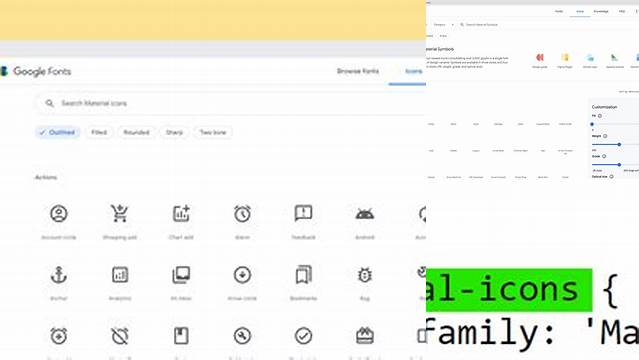
Material Icons: Using Google Fonts & Href Rel=stylesheet
Hey guys! Ever wondered how to get those slick Material Icons from Google into your website? It's actually super easy, and we're going to break it down using the href https fonts googleapis com icon family material icons rel stylesheet method. This is basically the magic incantation you need to link Google's Material Icons font library to your project. So, let's dive in and make your website look awesome with these icons!
1. What are Material Icons and Why Use Them?
Material Icons are a set of pre-designed icons created by Google, following their Material Design guidelines. Think of them as a visual language for your website or app, providing a consistent and clean look. These icons cover a wide range of common actions and objects, like search, menu, settings, and more. They're like tiny visual superheroes, ready to save the day (or at least, make your website more user-friendly!).
Why should you use them? Well, for starters, they're free! Plus, they're designed to look great on any screen size, from tiny phones to giant desktops. Using a consistent set of icons, like Material Icons, really elevates the user experience, making your site feel polished and professional. Imagine trying to navigate a website with a bunch of random, mismatched icons – it'd be chaos! Material Icons bring order and clarity to the digital realm.
Another big win is that they're a font. Yep, you heard that right! This means they're super scalable, so they'll look crisp and clear no matter how big or small you make them. And because they're a font, you can style them with CSS just like you would with text – changing their color, size, and even adding shadows. How cool is that? Using icon fonts also reduces the number of image requests, which can speed up your website's loading time. That's a win-win!
2. Understanding the <link> Tag
The <link> tag in HTML is your best friend when it comes to connecting external resources to your webpage. It's the little helper that tells the browser, "Hey, go grab this stylesheet (or icon font!) from over there and use it on this page." Think of it like a bridge, connecting your HTML document to the wider world of CSS stylesheets, favicons, and, in our case, Google's Material Icons font library. Without the <link> tag, your webpage would be a lonely island, unable to benefit from the styles and resources it needs to truly shine.
The <link> tag goes inside the <head> section of your HTML document, which is where all the metadata and links to external resources live. It's like the backstage area of your webpage, setting the stage for the visual performance to come. The href attribute is the most important part of the <link> tag, as it specifies the URL of the resource you want to link to. In our case, it's https://fonts.googleapis.com/icon?family=Material+Icons, the online address of the Material Icons font library hosted by Google.
Other important attributes include rel, which defines the relationship between the current document and the linked resource. For stylesheets and icon fonts, we use rel="stylesheet". This tells the browser that the linked resource is a stylesheet and should be applied to the page. There are other rel values, like icon for favicons and alternate for alternative stylesheets, but stylesheet is the one we're focusing on here. So, the <link> tag is essentially the messenger, carrying instructions and resources from external locations to your webpage, making it look and function the way you want it to.
3. Breaking Down the href Attribute: https://fonts.googleapis.com/icon?family=Material+Icons
Okay, let's dissect this URL, https://fonts.googleapis.com/icon?family=Material+Icons, piece by piece, like a digital archaeologist uncovering the secrets of the internet! This URL is the key to unlocking the treasure trove of Material Icons, so it's important to understand what each part means. Think of it as a map, guiding the browser to the exact location of the icon font files.
First up, we have https://fonts.googleapis.com. This is the base URL for Google Fonts, a massive online library of fonts that you can use in your web projects. Google Fonts is like a giant font supermarket, offering a huge variety of typefaces, including our beloved Material Icons. Google Fonts is a fantastic resource for web developers, providing a free and easy way to enhance the typography and visual appeal of their websites.
Next, we see /icon. This part of the URL specifies that we're requesting the icon font, rather than a regular text font. It's like telling the font supermarket, "Hey, I'm looking for the icons section!" This is a crucial piece of the puzzle, as it directs Google Fonts to serve up the correct font files for Material Icons.
Finally, we have ?family=Material+Icons. This is the query string, and it's where we tell Google Fonts exactly which font family we want. The ? symbol marks the beginning of the query string, and family=Material+Icons specifies that we want the "Material Icons" font family. The + symbol is used as a space in URLs, so it's essentially saying "Material Icons" as one font family name. So, putting it all together, this URL is a precise request to Google Fonts: "Please give me the Material Icons font family!" And that's the magic that brings those beautiful icons to your website.